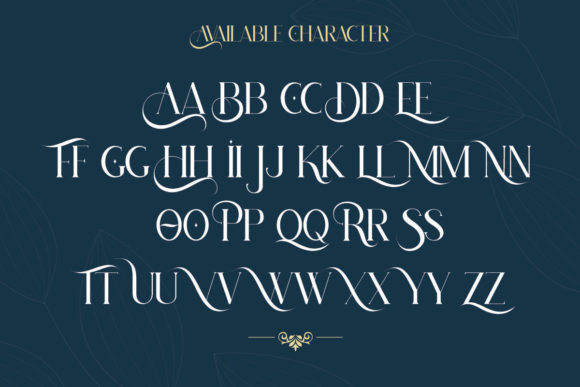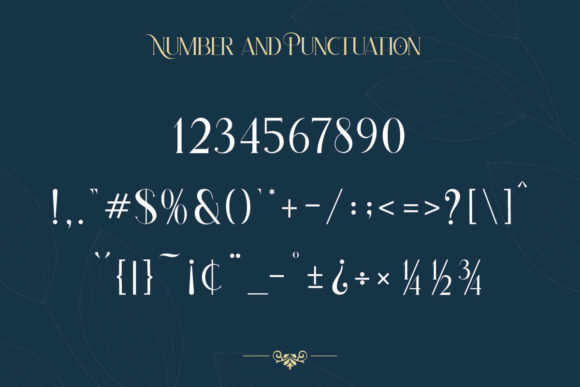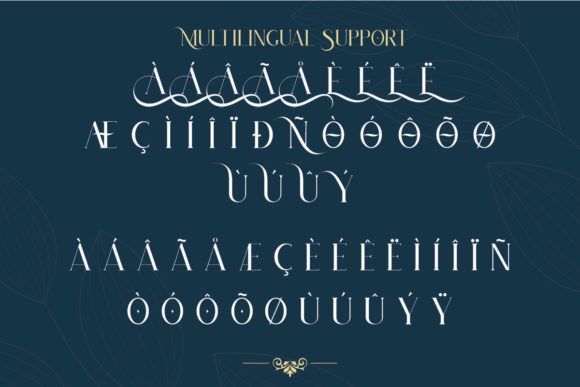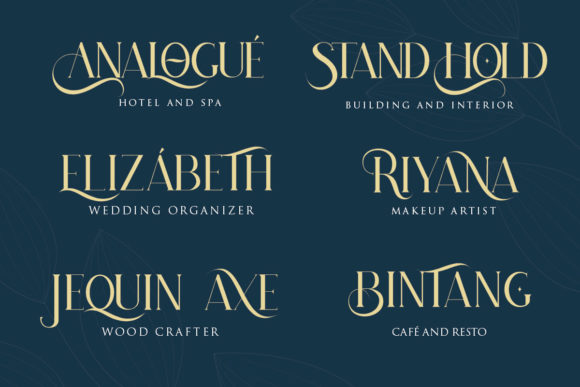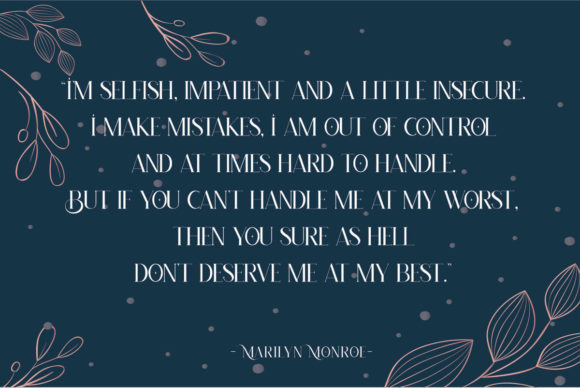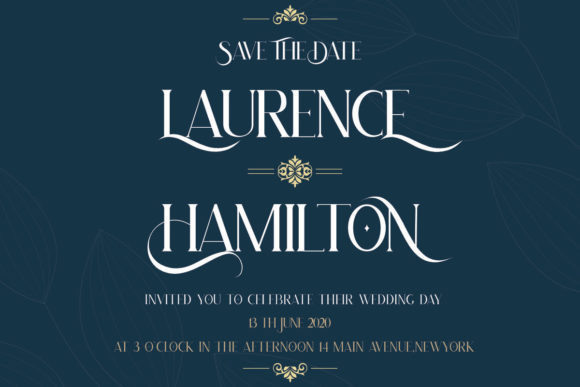
Discover the Elegance of Hatolie Font: Elevate Your Designs with Sophistication
Hatolie is an incredibly elegant and beautiful serif font. It can easily be matched to an incredibly large set of projects, so add it to your creative ideas and notice how it makes them stand out!
Introduction to Hatolie Font
In the world of typography, a font can make or break a design. A well-chosen font can elevate your project, adding a touch of sophistication and elegance. Hatolie font is one such typeface that has been gaining popularity among designers and crafters alike. With its classic serif design and modern twist, Hatolie is perfect for those looking to add a touch of refinement to their work.
Key Features of Hatolie Font
- Elegant Serif Design: Hatolie boasts a traditional serif design, complete with delicate flourishes and intricate details.
- Versatility: This font can be paired with a wide range of projects, from elegant wedding invitations to sophisticated business cards.
- Legibility: Despite its ornate design, Hatolie remains highly legible, making it perfect for both headings and body text.
- Unique Character: Each letter in the Hatolie font has been carefully crafted to ensure that it stands out from the crowd, giving your designs a unique edge.
Use Cases for Hatolie Font
Hatolie’s versatility makes it an excellent choice for a variety of design projects. Here are some use cases where Hatolie truly shines:
- Wedding and Event Invitations: Add a touch of elegance to your wedding or event invitations with Hatolie’s sophisticated design.
- Branding and Packaging: Elevate your brand with a font that exudes luxury and refinement.
- Stationery and Letterheads: Create beautiful stationery and letterheads that make a lasting impression.
- Magazines and Editorials: Use Hatolie to add a touch of sophistication to your magazine or editorial design.
Tips for Using Hatolie Font Effectively
To get the most out of Hatolie, here are some tips to keep in mind:
- Pair with Sans-Serif Fonts: Combine Hatolie with sans-serif fonts for a striking contrast that adds visual interest.
- Experiment with Colors: Try pairing Hatolie with different colors to create a unique look that suits your brand or design.
- Pay Attention to Spacing: Make sure to adjust the spacing between letters and lines to ensure optimal legibility.
In conclusion, Hatolie font is an excellent choice for designers and crafters looking to add a touch of elegance and sophistication to their work. With its classic serif design, versatility, and unique character, Hatolie is sure to elevate your designs and make them stand out. So why wait? Download Hatolie font today and discover the power of beautiful typography!